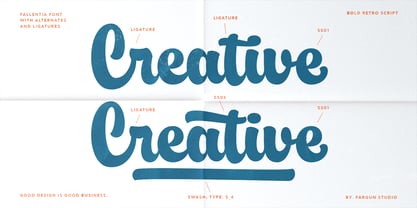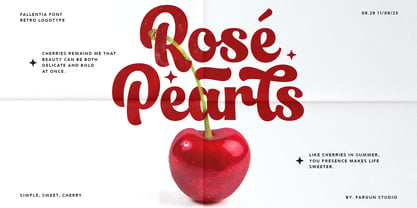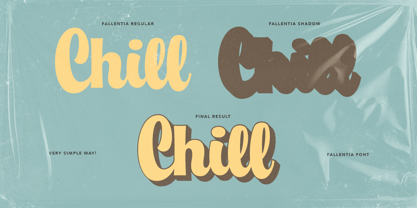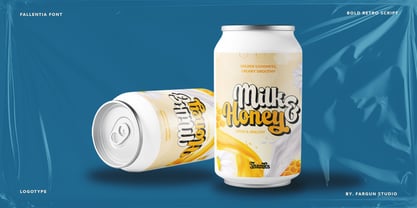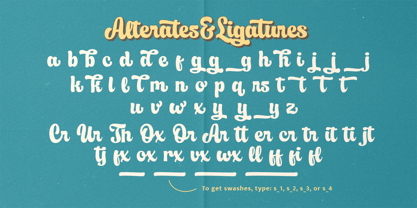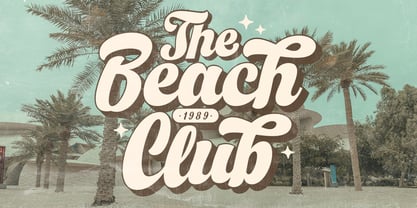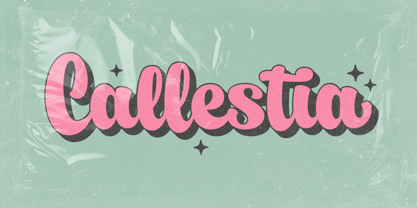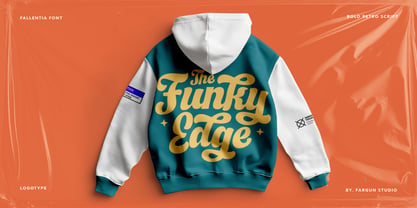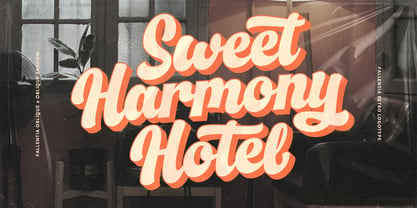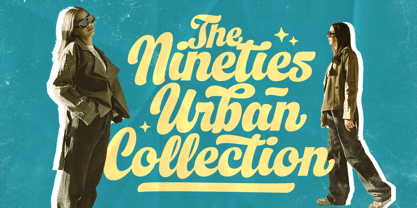
Fallentia
by Fargun Studio
The Fallentia Font Family was designed by Fajar Gunawan and published by Fargun Studio. Fallentia contains 6 styles and family package options. More about this family
Introducing Fallentia – a bold retro script that instantly takes you back to the vibrant 90s era! With its smooth curves and strong personality, Fallentia is more than just a typeface—it’s a statement. This font comes with oblique and extrude versions, giving you the flexibility to create eye-catching retro effects with ease. Whether you want a bold headline, a nostalgic logo, or striking typography, Fallentia is designed to make your projects stand out effortlessly.
Designers: Fajar Gunawan
Foundry: Fargun Studio
Fallentia